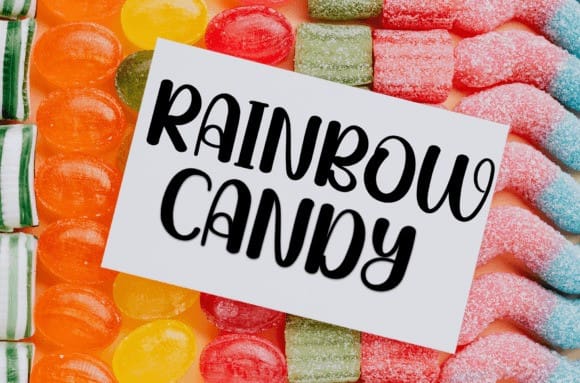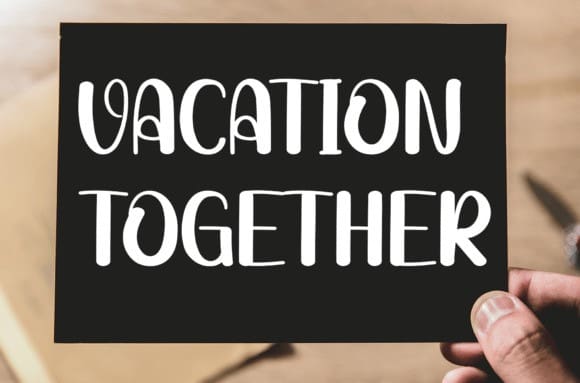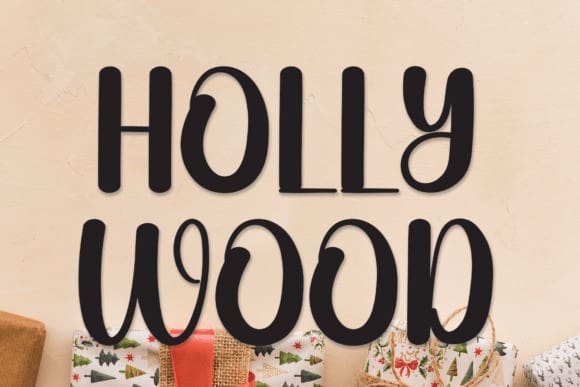
Holly Wood Font
Holly Wood Font is a sweet and friendly handwritten font. Fun and relaxed, this font is ideal for writing wedding invitations, cards, or any other design that might need a lovely touch!